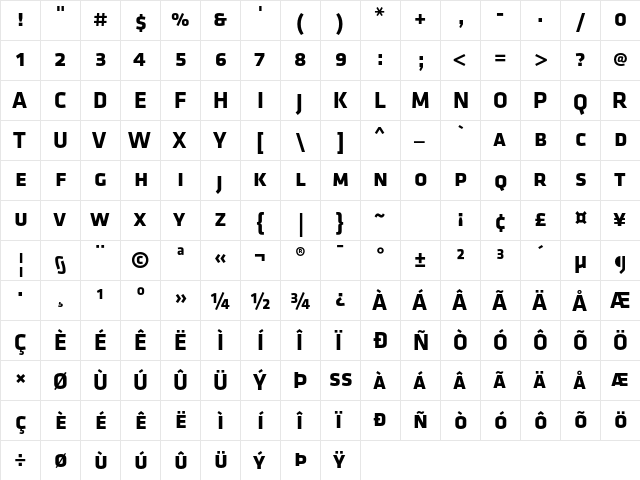
Klavika Bold Caps Bold
Design Context for Klavika Bold Caps Typeface
Klavika Bold Caps is a composed and adaptable typeface that performs quietly and consistently across a wide range of design contexts. The heavy weight commands attention and anchors typographic hierarchies.